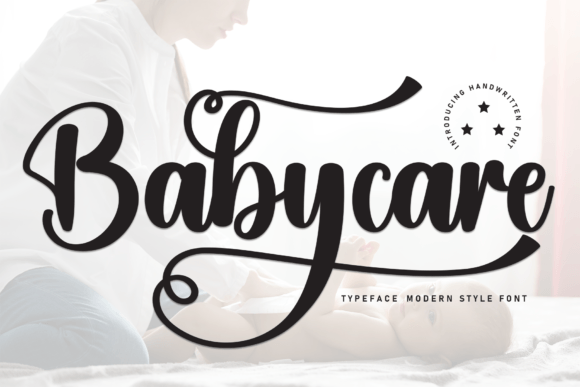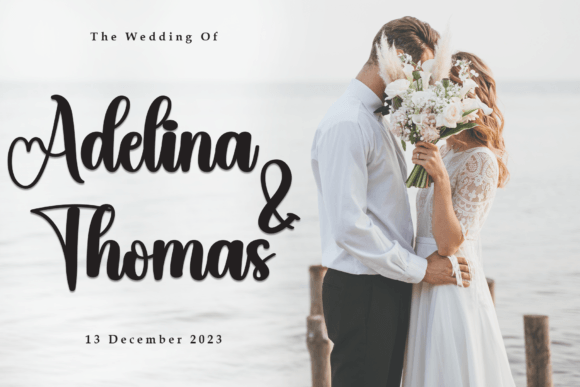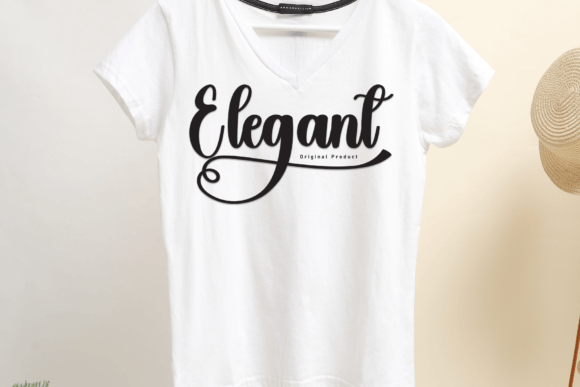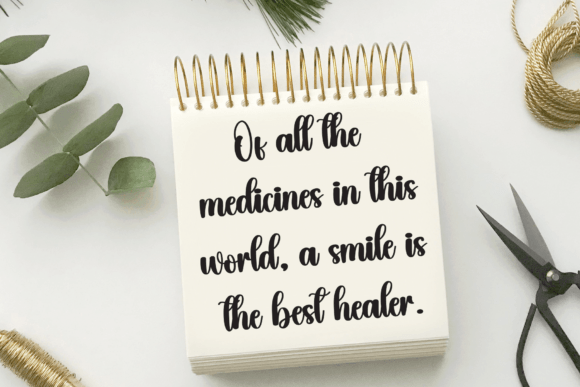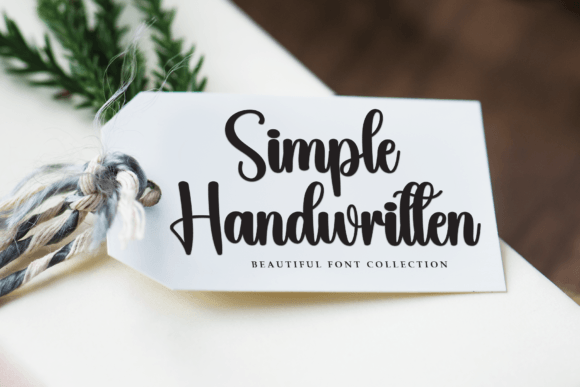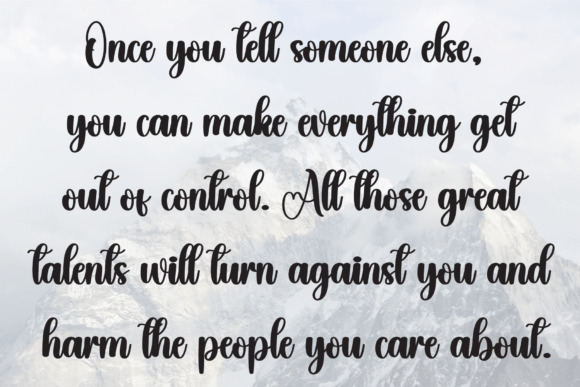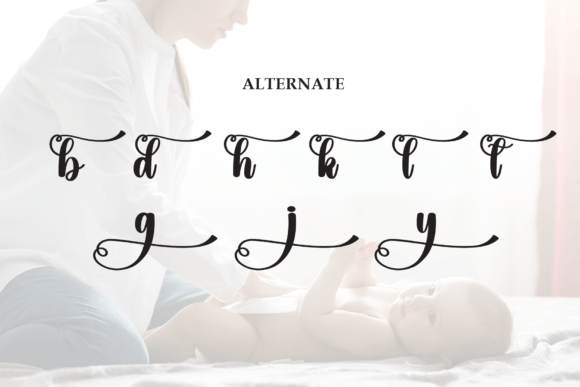
Discover Your New Creative BFF: Babycare Font
There’s nothing quite like the thrill of starting a new design project. You’re bursting with ideas, and your imagination is running wild. You spend hours pouring over inspiration boards, color palettes, and typography options. And then, it happens – you stumble upon the perfect font. For many designers, that moment of discovery is a game-changer.
Meet Babycare Font, a stunning handwritten font that’s sure to become your new go-to. With its elegant calligraphic influences and modern flair, Babycare Font is the perfect addition to any design project. Whether you’re working on a wedding invitation, a baby announcement, or a brand identity, this font is sure to elevate your work to new heights. Its versatility and charm make it a valuable asset for designers of all levels, and we’re excited to share its beauty with you.
Get ready to fall in love with Babycare Font and take your designs to the next level.
- Unique Characteristics: The font features a playful, modern design with rounded edges and smooth curves, making it perfect for baby-related products and applications.
- Language Support: Babycare Font supports a wide range of languages, including Latin, Cyrillic, Greek, and many others, ensuring its versatility in various design projects.
Babycare Font Review
Overall, I’d say the Babycare Font is a lovely addition to any nursery or children’s space, but it’s not without its quirks. ✨ Here are some things that work well:
- Unique and playful design that adds a touch of whimsy to any space
- Clear and easy-to-read, even at smaller font sizes
- Wide range of customization options for color, size, and style
However, there are some limitations that might make it less appealing to some designers: ⚠️
- Limited font weights and styles compared to more comprehensive font libraries
- No bold or italic variations available
- Some users may find the design too cutesy or overly childlike
Overall, I think the Babycare Font is a solid choice for designers who want to create a playful and inviting atmosphere. It’s perfect for nursery decor, children’s book covers, or any other project that requires a lighthearted touch. However, it may not be the best fit for more formal or professional projects.
Tips for Getting the Most Out of Babycare Font
Use the Babycare Font in conjunction with other playful and child-friendly graphics to create a cohesive design.
Experiment with different font sizes and styles to add visual interest to your design.
Consider using the Babycare Font in conjunction with other fonts to create a layered, textured look.
The Babycare Font is ideal for creating designs for children’s products, educational materials, and family-related branding.
Use the font in logos, business cards, brochures, and other marketing materials to create a friendly and approachable image.
The font is also suitable for creating labels, stickers, and other packaging materials for children’s products.